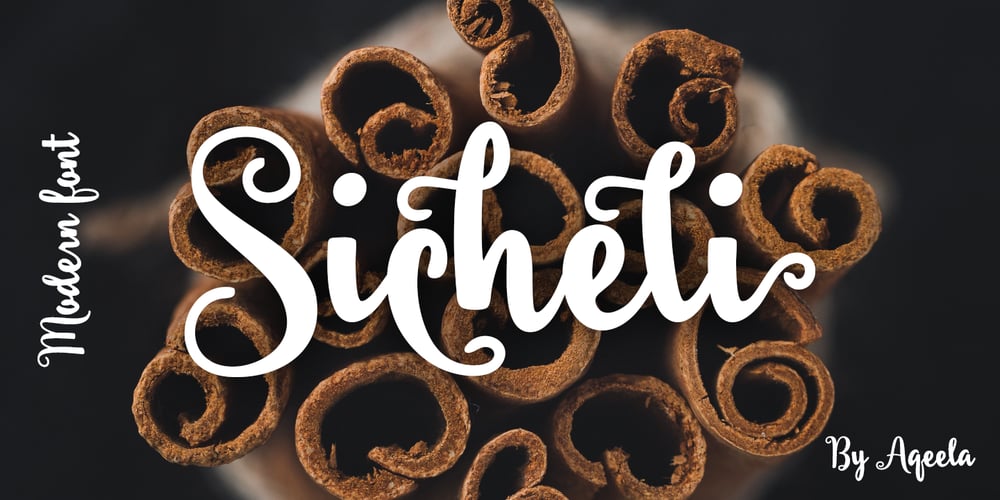
Sicheli
Sicheli font
Sicheli Font Family was designed by Muhammad Nasir and published by Aqeela Studio. Sicheli contains 1 styles and family package options. Sicheli is a new modern modern, brush and calligraphy script, including decorative characters. It’s so beautiful with invitations, perfect for logos, stationery, wedding designs, media posts, advertisements, product packaging, product designs, labels, photography, air signs, special events, greeting cards, branding materials, business cards, quotes, posters and much more. It includes with 329 glyphs. Alternative characters are divided into several OpenType features such as Stylistic Sets, Stylistic Alternates. The OpenType feature can be accessed by using OpenType savvy programs such as Adobe Illustrator, Adobe InDesign, Adobe Photoshop Corel Draw X version, and Microsoft Word. And this font has already been given. So all alternative characters can be easily accessed by craftsmen or designers. Regards Aqeela